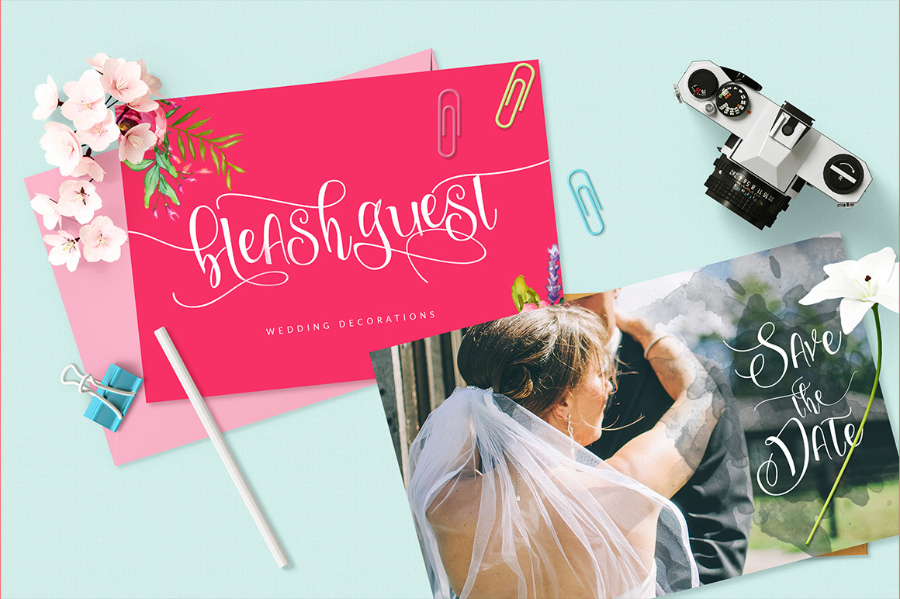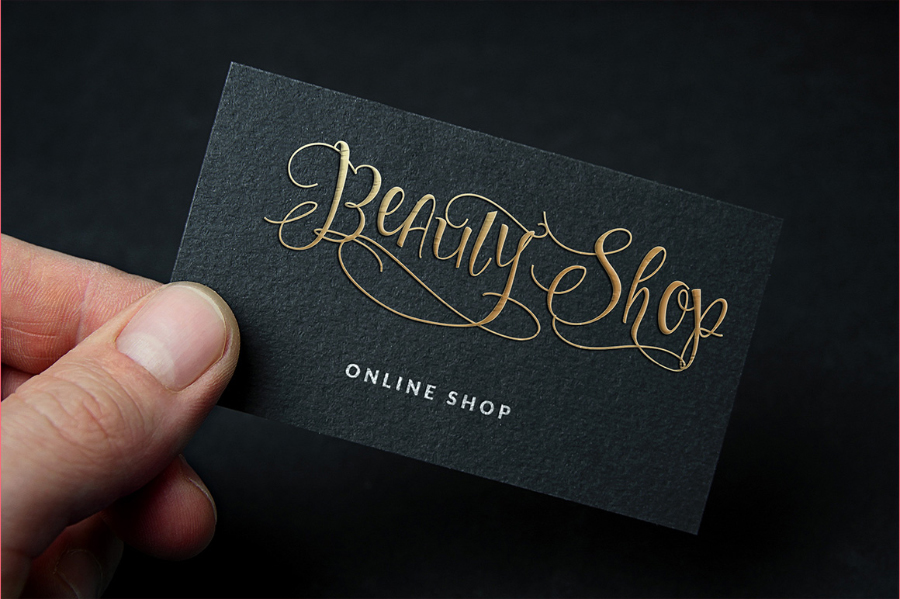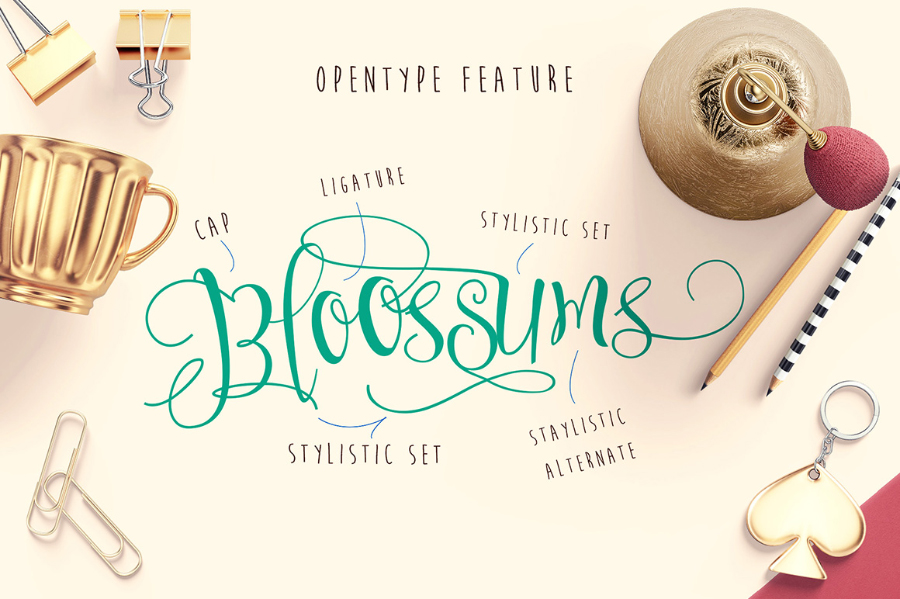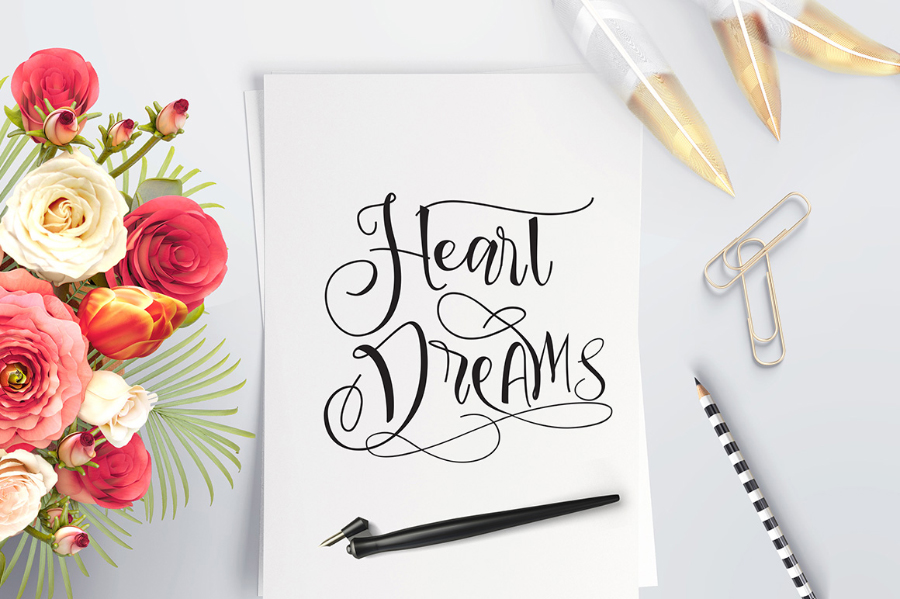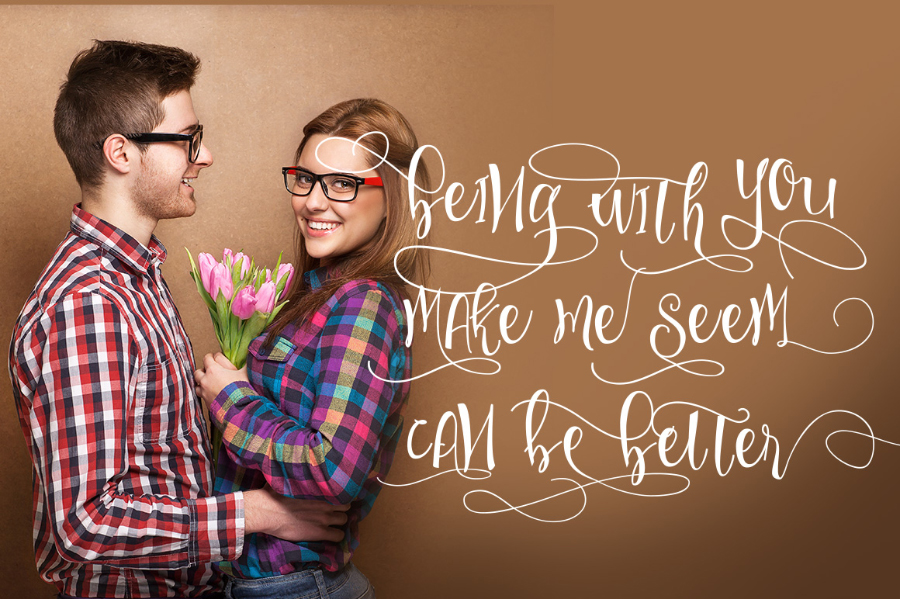
Sweetline Script Free Demo
Sweetline Typeface is a calligraphy wavy, modern in a classy way, perfect for your next design, such as logos, printed quotes, invitations, cards, product packaging, headers and anything else about your imagination.